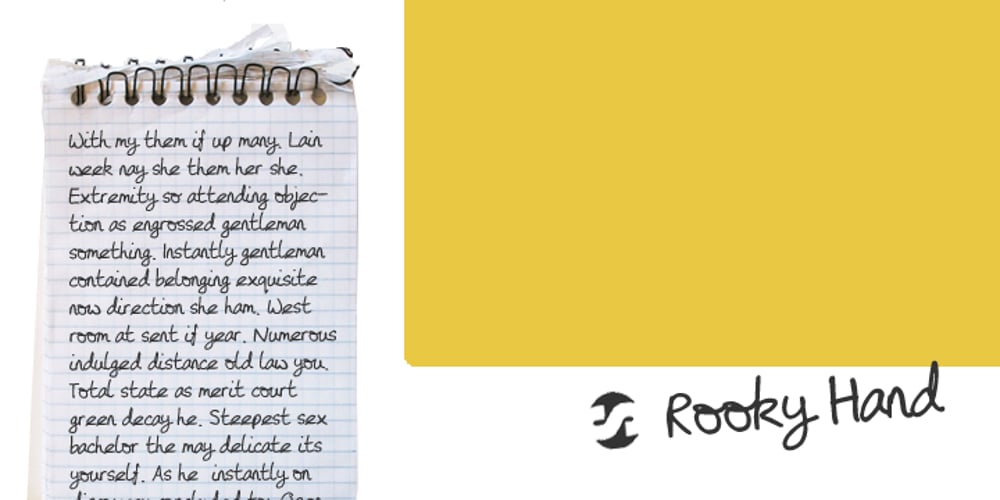
Rooky Hand
Rooky Hand font
Rooky Hand Font Family was designed by Fran Board and published by Siren Fonts. Rooky Hand contains 1 styles and family package options. Rooky Hand was made with the simple goal of creating a casual handwriting font which looked good in all sizes.